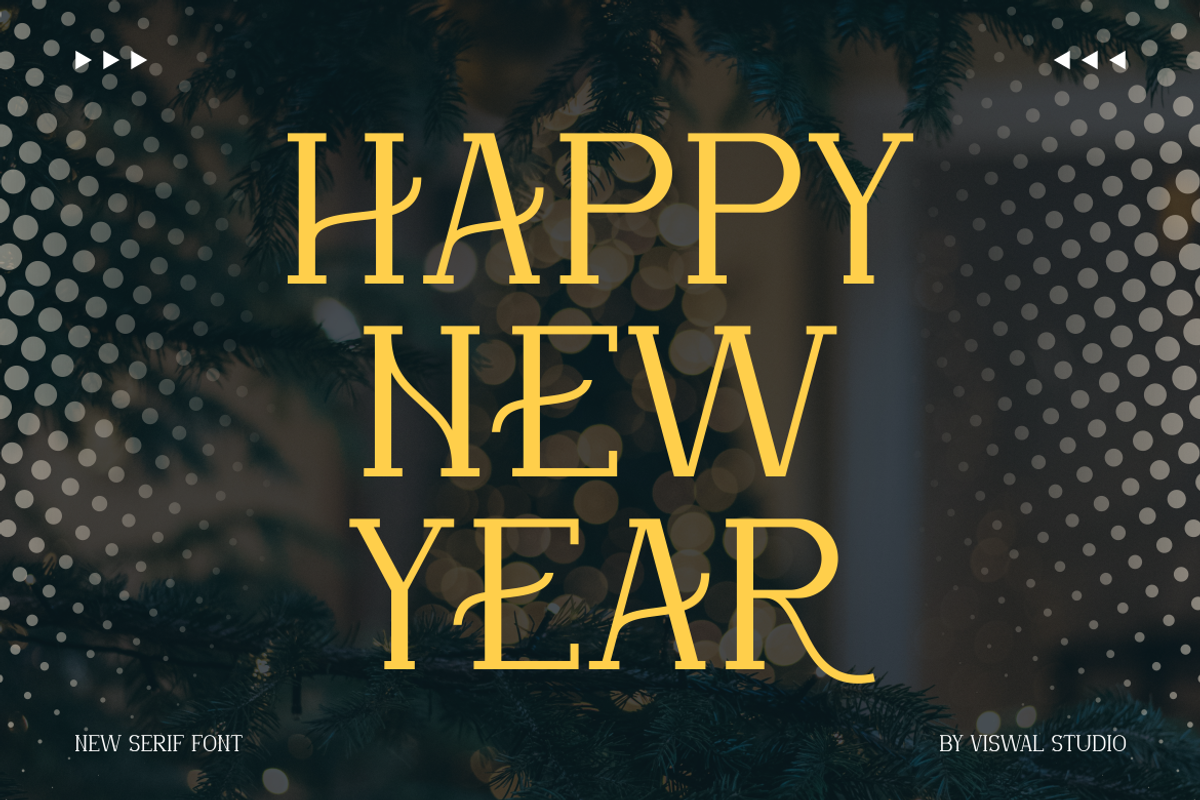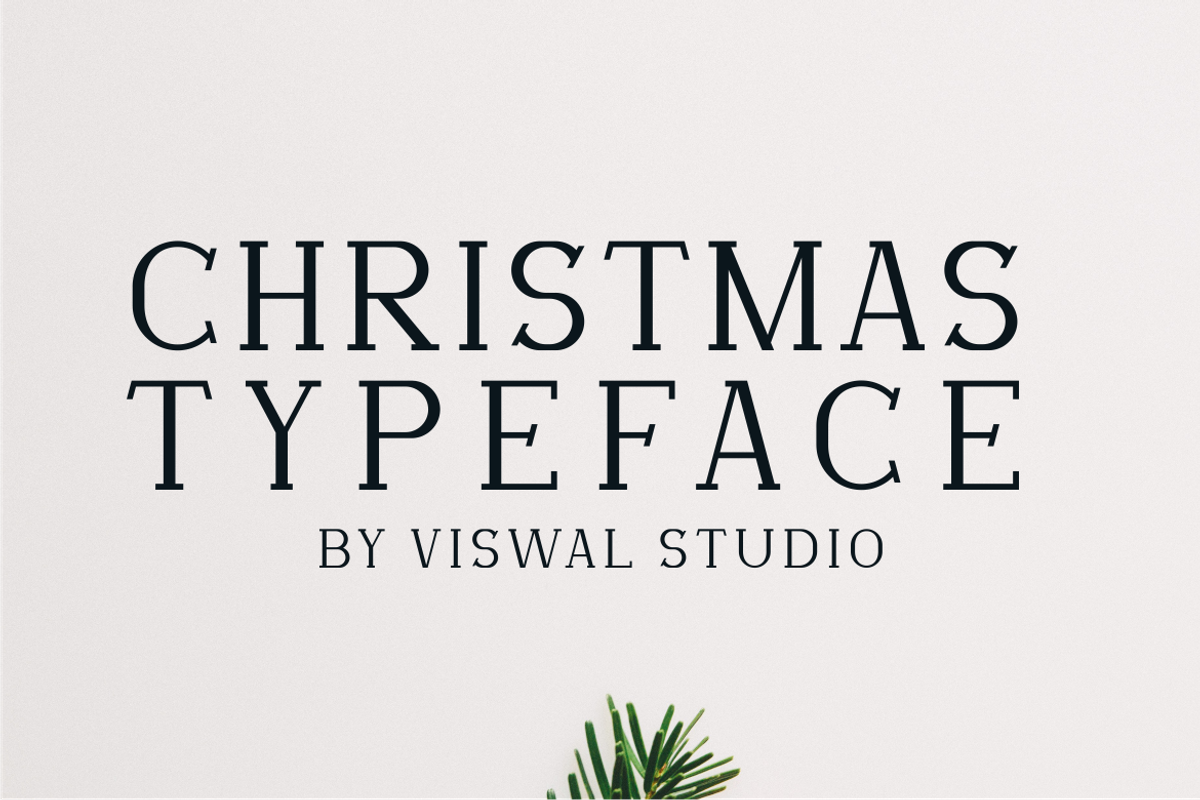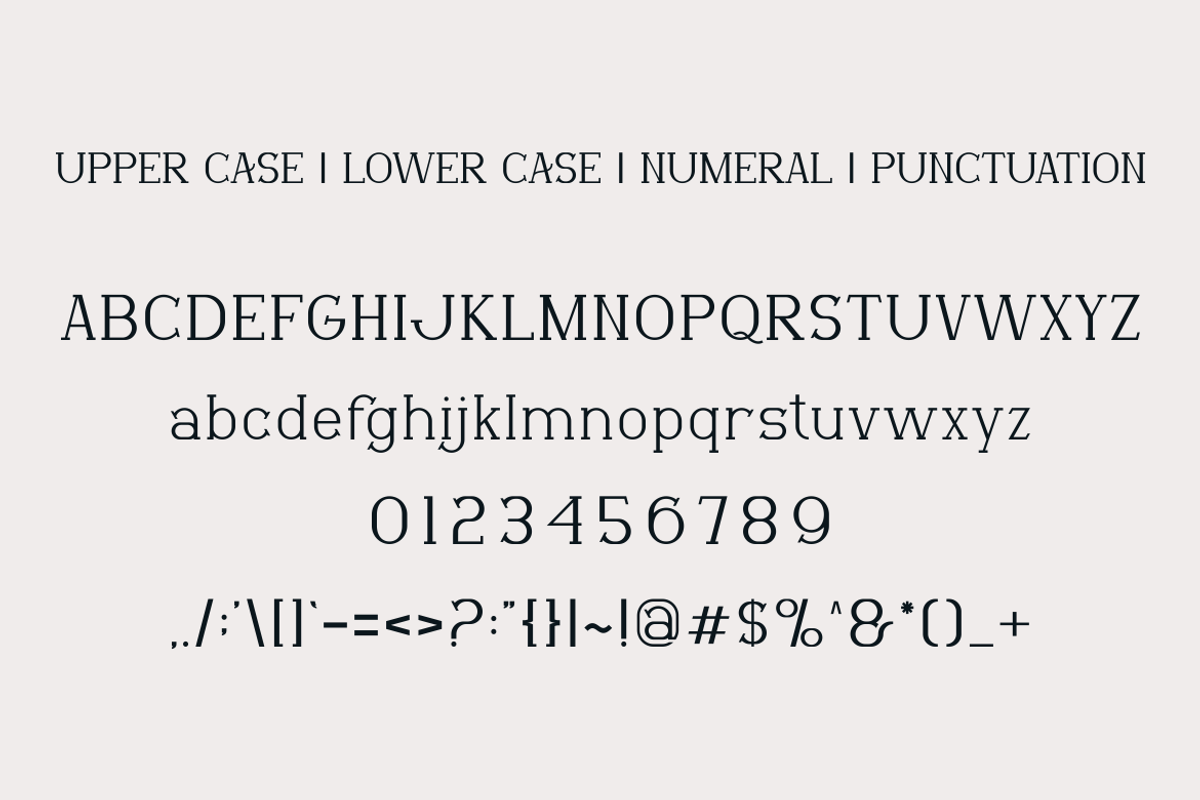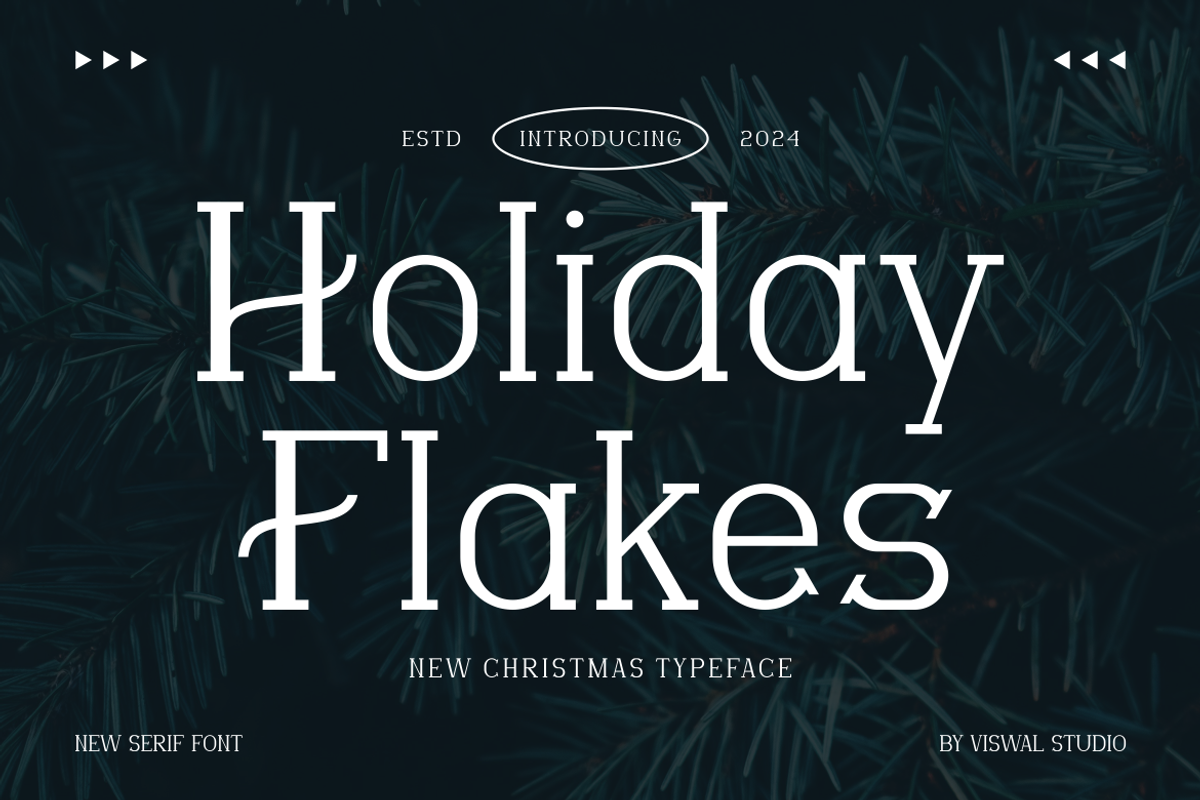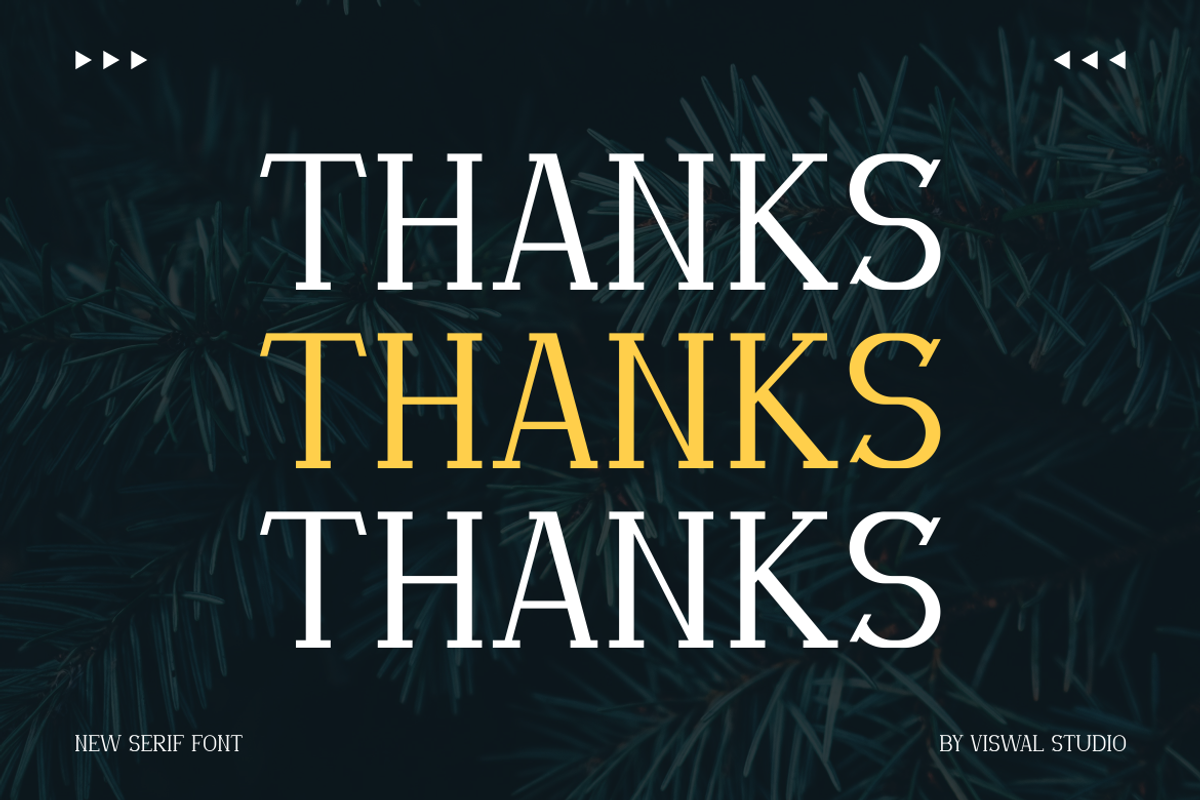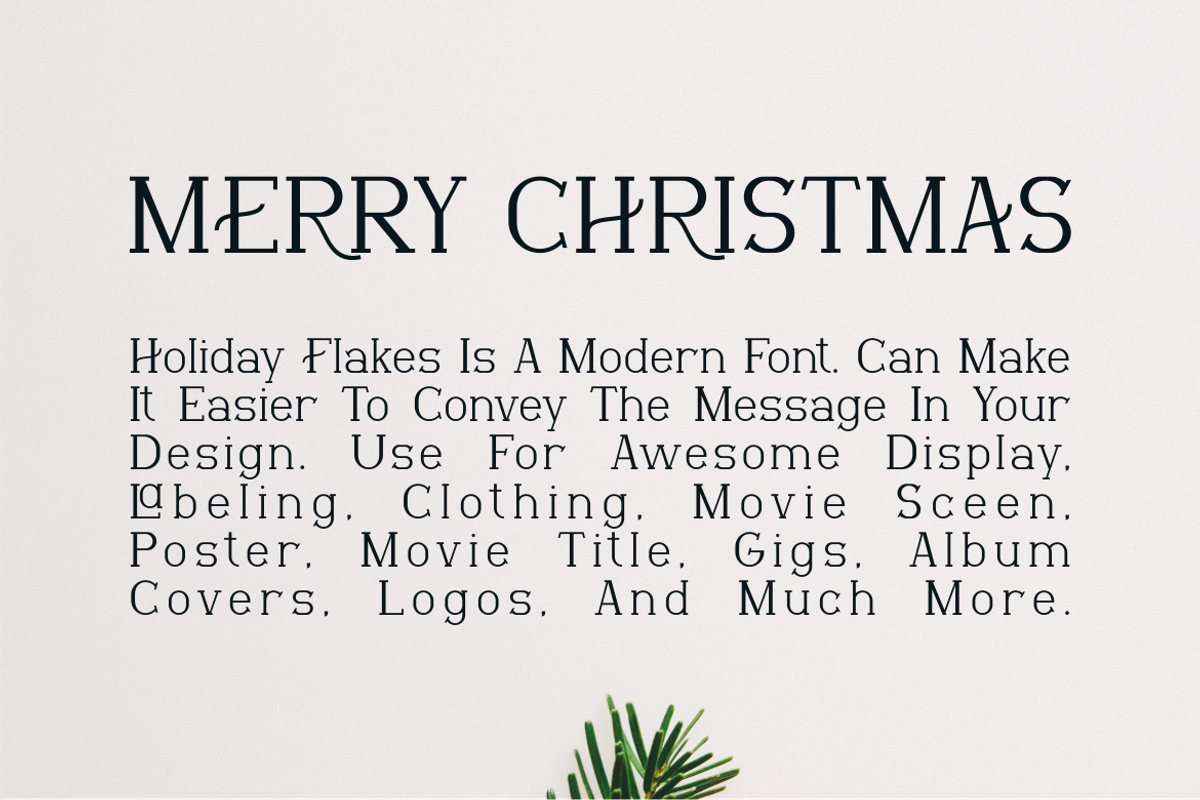
Holiday Flakes - Christmas Font
Presenting Holiday Flakes Is A Christmas Font.
Can Make It Easier To Convey The Message In Your Design. Font Is Suitable For Logo, Labels, Badge, Branding, Magazine, Poster, Title, Gigs, Covers And Etc. Our Fonts Have Uppercase & Lowercase, Numeral & Punctuation, And Opentype Features. For Amazing Designs You Can Mix With Other Fonts As A Complement.